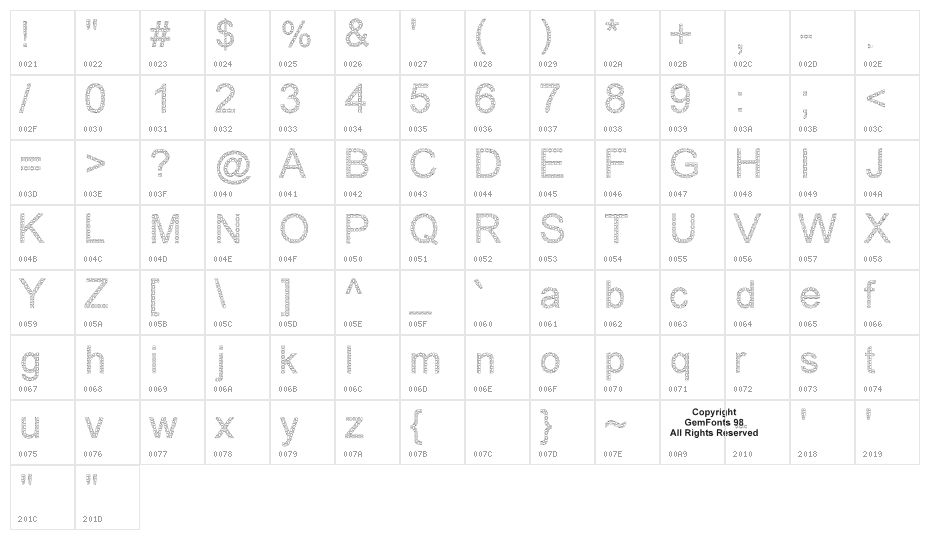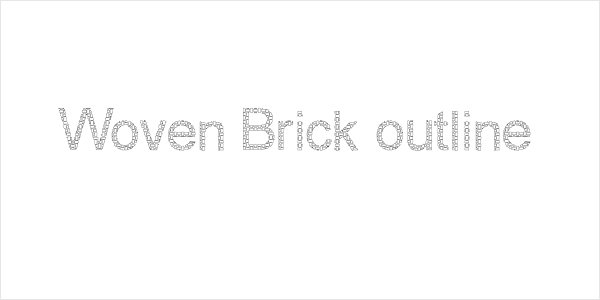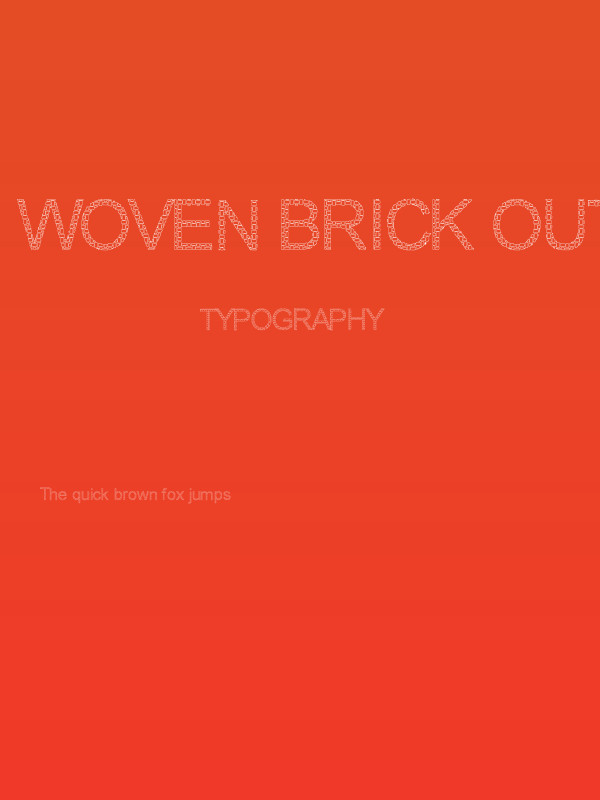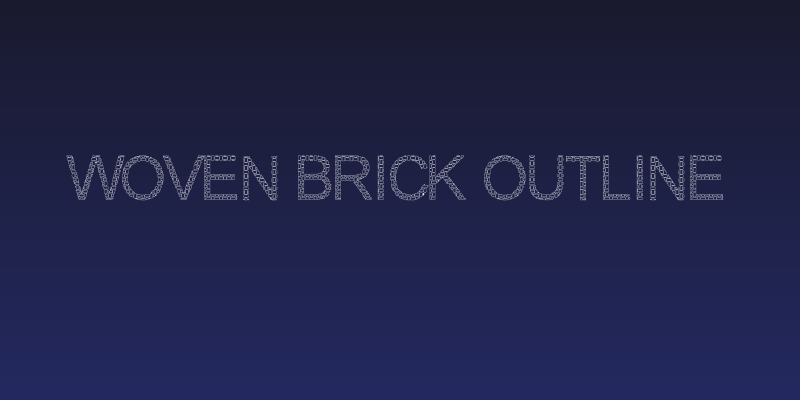
Woven Brick outline Font
Woven Brick outline Description
This font features a unique woven brick pattern that outlines each character, giving it a textured and dimensional appearance. The design is intricate, with each letter and number appearing as if constructed from small, interlocking bricks. This creates a visually striking effect that is both playful and architectural. The uppercase and lowercase letters maintain a consistent style, ensuring readability while still showcasing the decorative elements. The numerals and special characters follow the same design principles, making the font versatile for various uses. The overall look is bold and eye-catching, perfect for projects that require a standout typographic element.
| Proposed Projects | Ideal for posters, branding, and creative projects that require a bold, architectural aesthetic. |